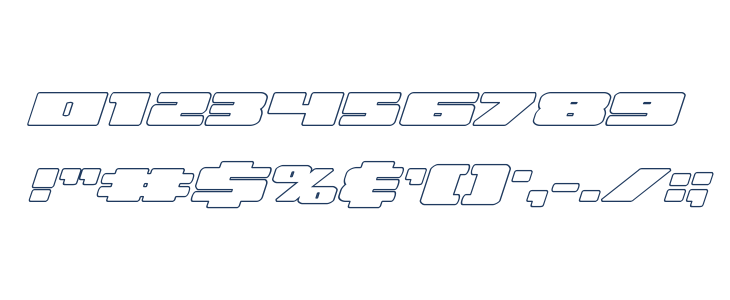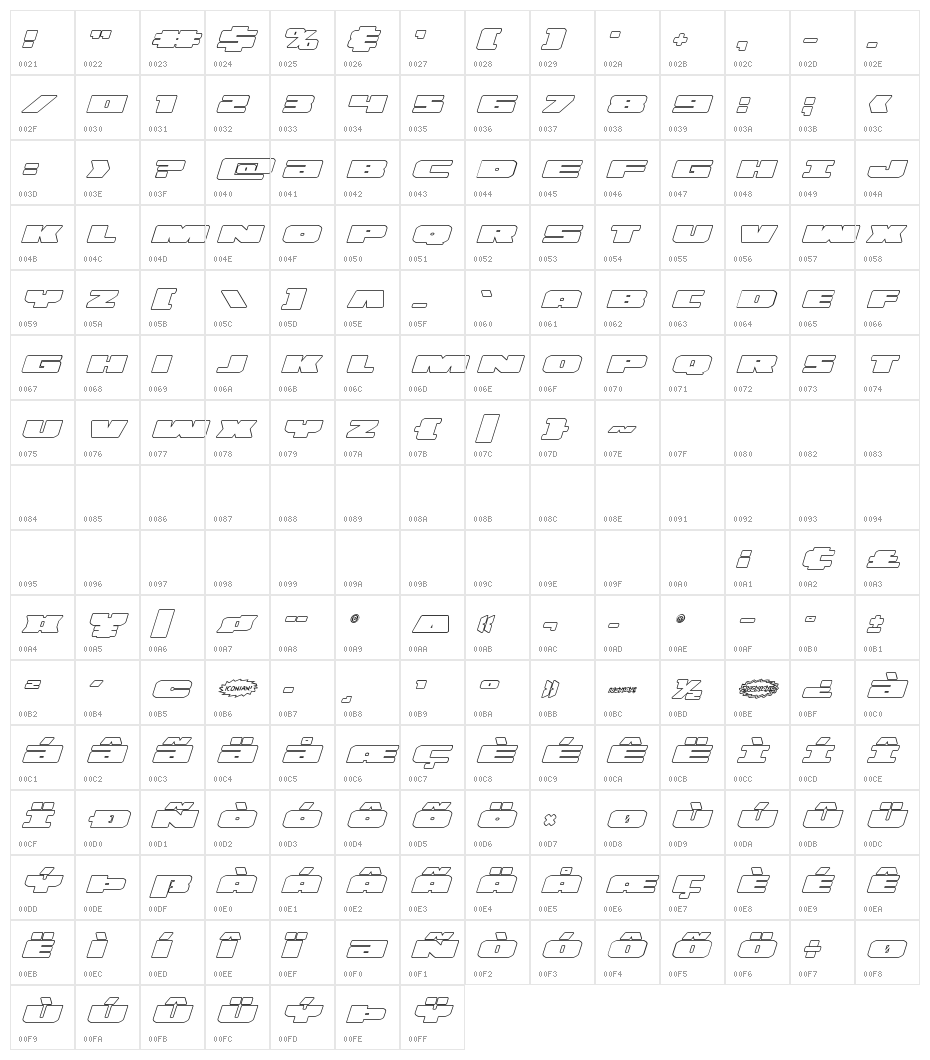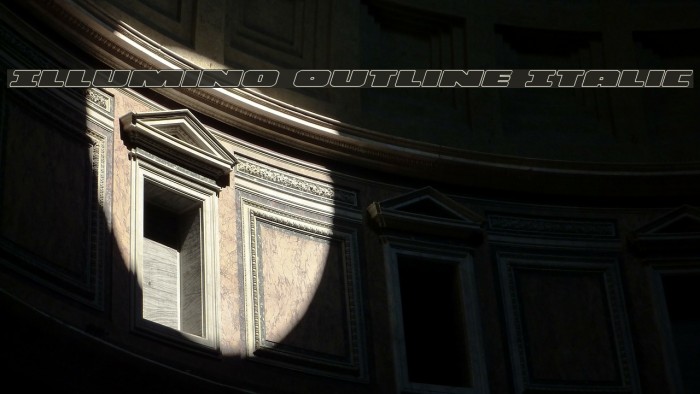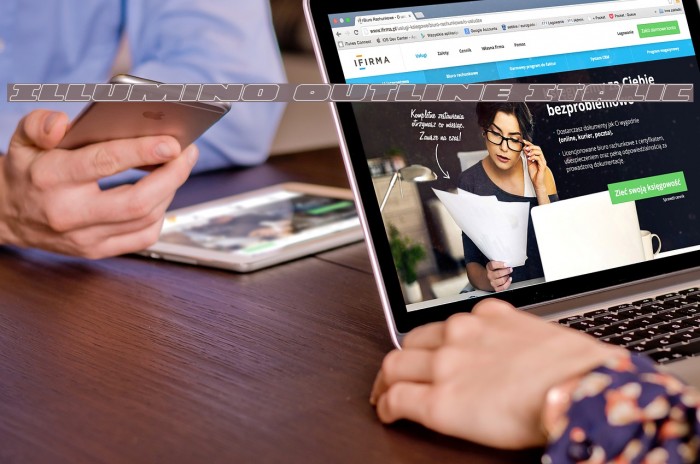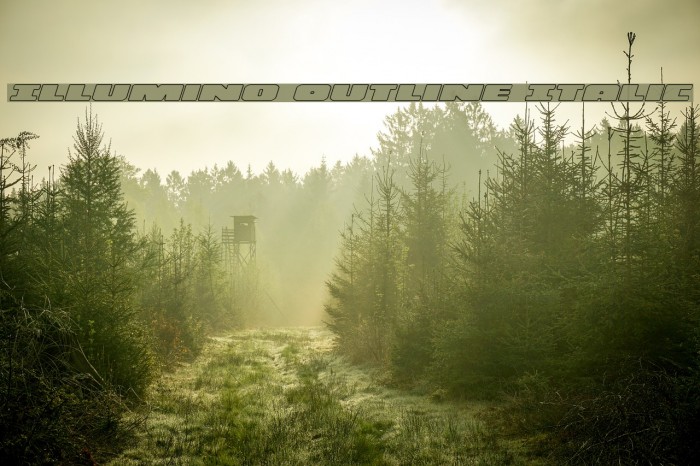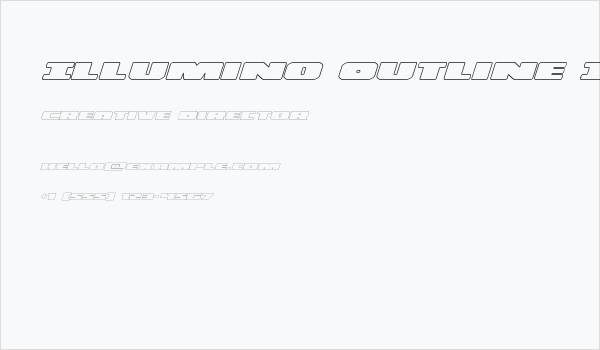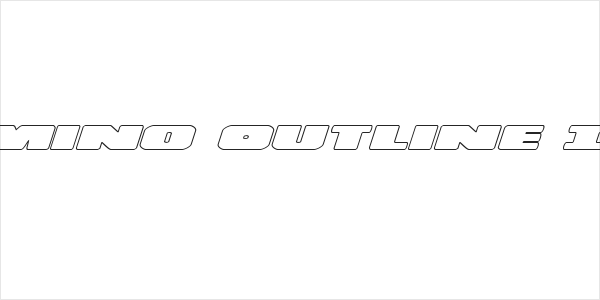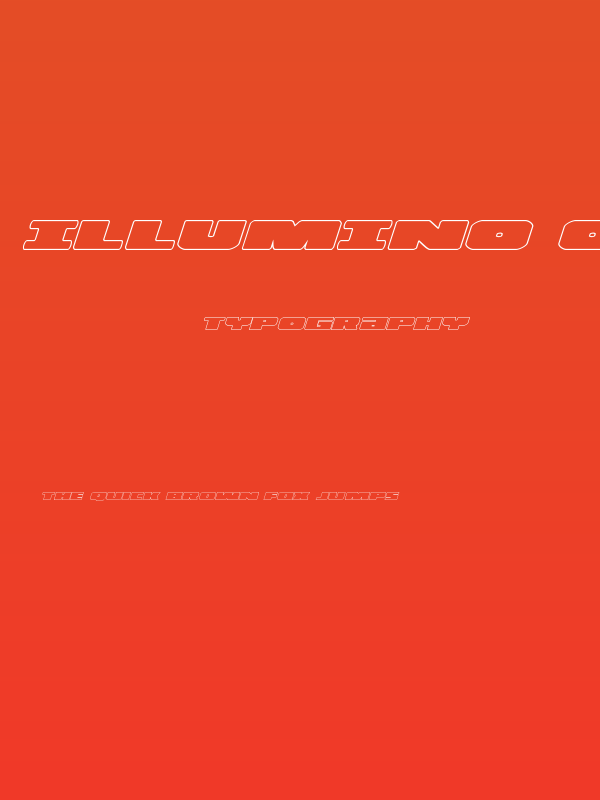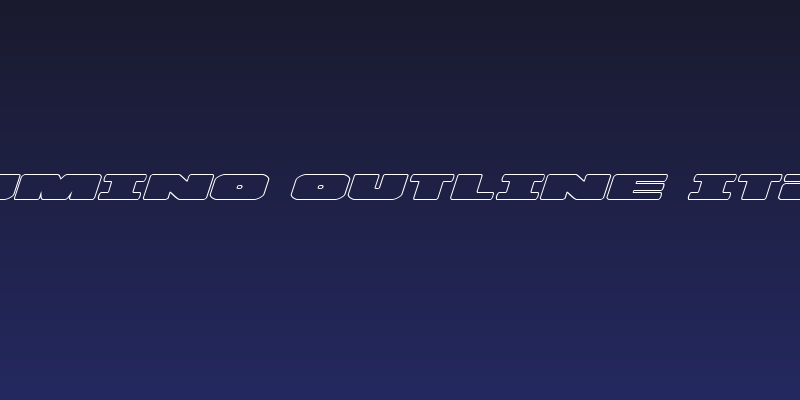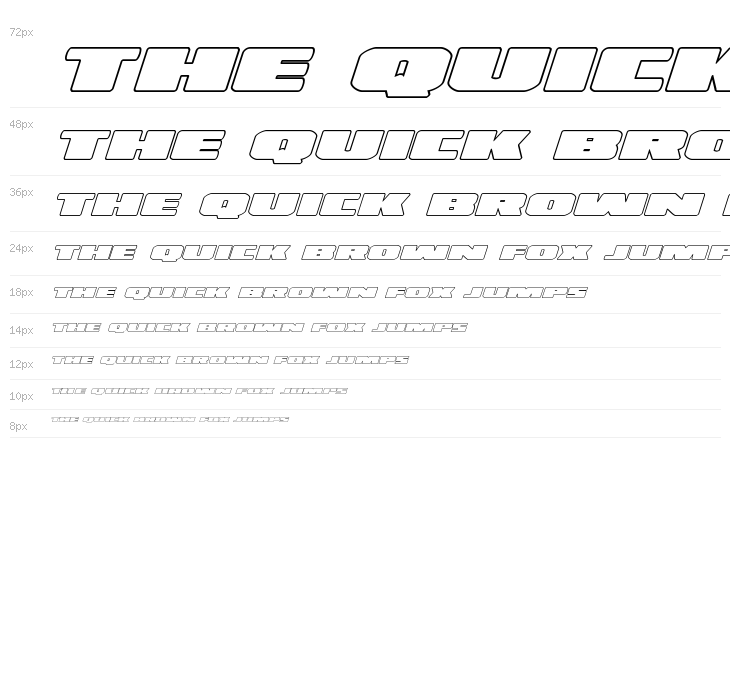
Illumino Outline Italic Font
Illumino Outline Italic Description
This font features a bold, geometric outline style with a distinct italic slant, giving it a dynamic and futuristic appearance. The characters are constructed with clean, sharp lines and consistent stroke widths, creating a uniform and cohesive look. The uppercase and lowercase letters maintain a strong visual presence, while the numerals and special characters complement the overall design. The outline nature of the font allows for creative layering and color usage, making it versatile for various design applications.
Overall StyleFuturistic
Proposed ProjectsIdeal for futuristic branding, sci-fi themed projects, digital artwork, and modern poster designs.